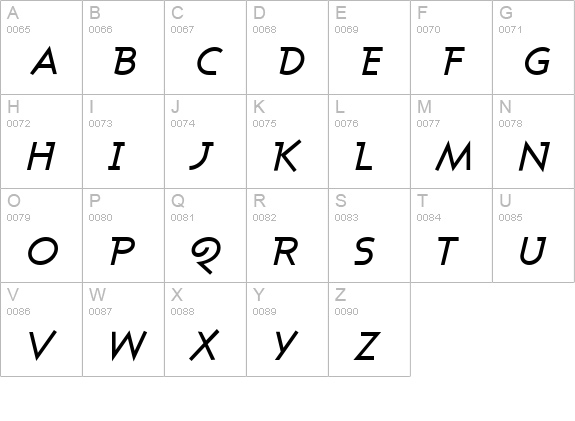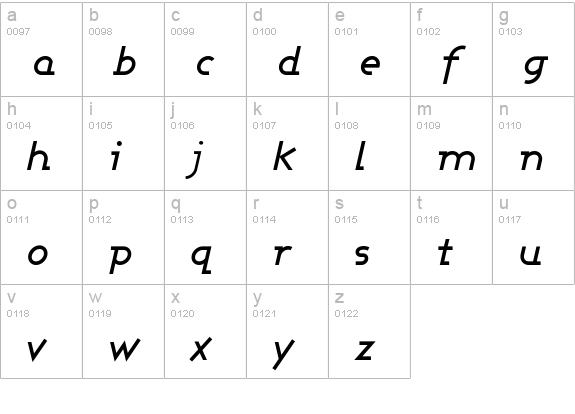
Ashby Medium Italic Font Details
Ashby Medium Italic is a balanced, medium-weight, italic variant in the Ashby typeface family \xE2\x80\x94 well suited to sub-headlines, navigation, and balanced editorial work.
Introducing Ashby Medium Italic font - a versatile and elegant typeface perfect for a wide range of design projects. The medium weight strikes the ideal balance between boldness and delicacy, making it suitable for both headers and body text. The italic style adds a touch of sophistication and flair to any design. What sets Ashby Medium Italic font apart is not only its beauty but also its accessibility. This font is available for free download at FontsMarket.com, making it a valuable addition to any designer's toolkit. Whether you're working on a website, poster, brochure, or any other project, Ashby Medium Italic font is sure to elevate your design with its timeless appeal. Don't miss out on this opportunity to enhance your work with the elegance and versatility of Ashby Medium Italic font. Download it for free today at FontsMarket.com and see the difference it can make in your designs.